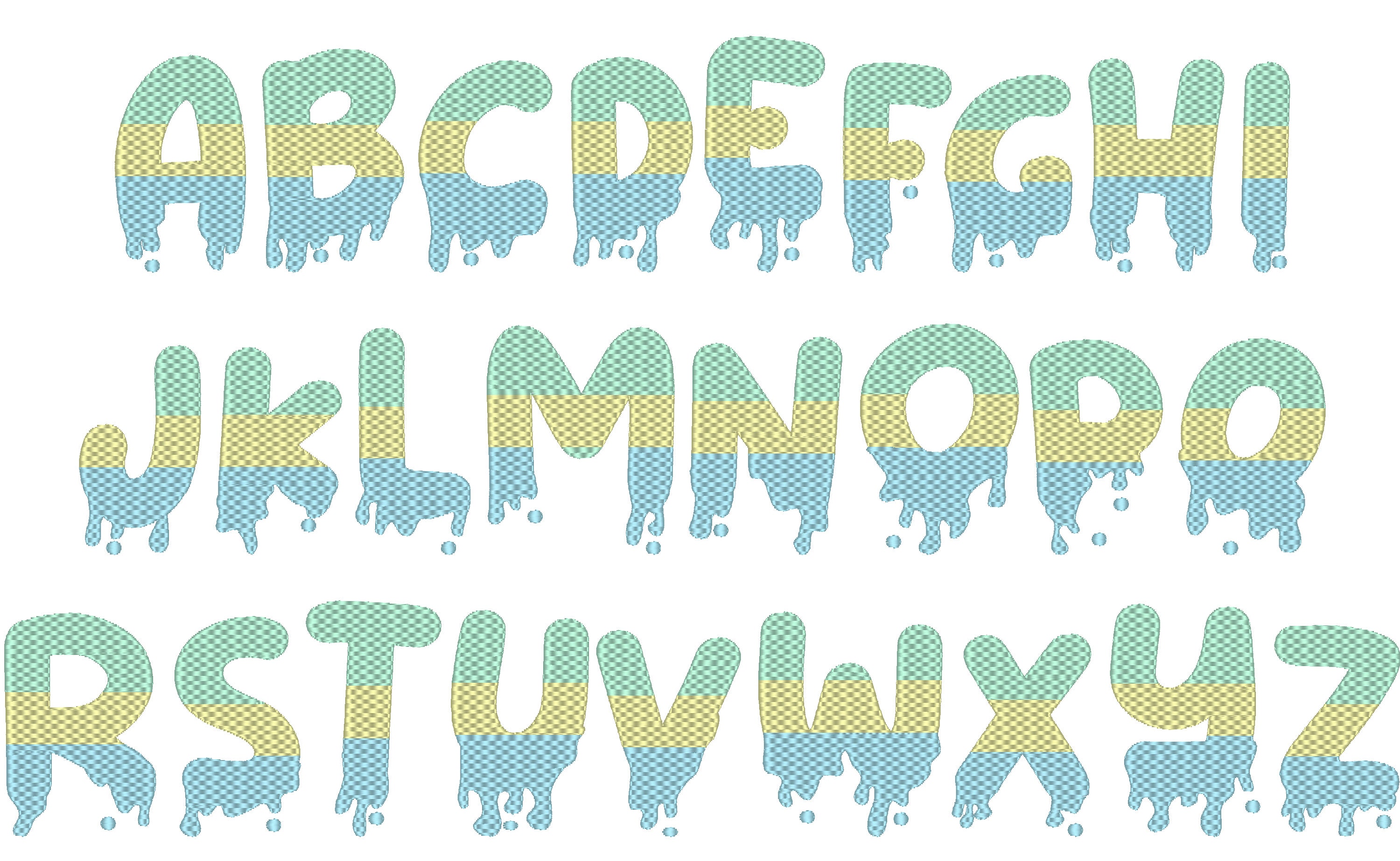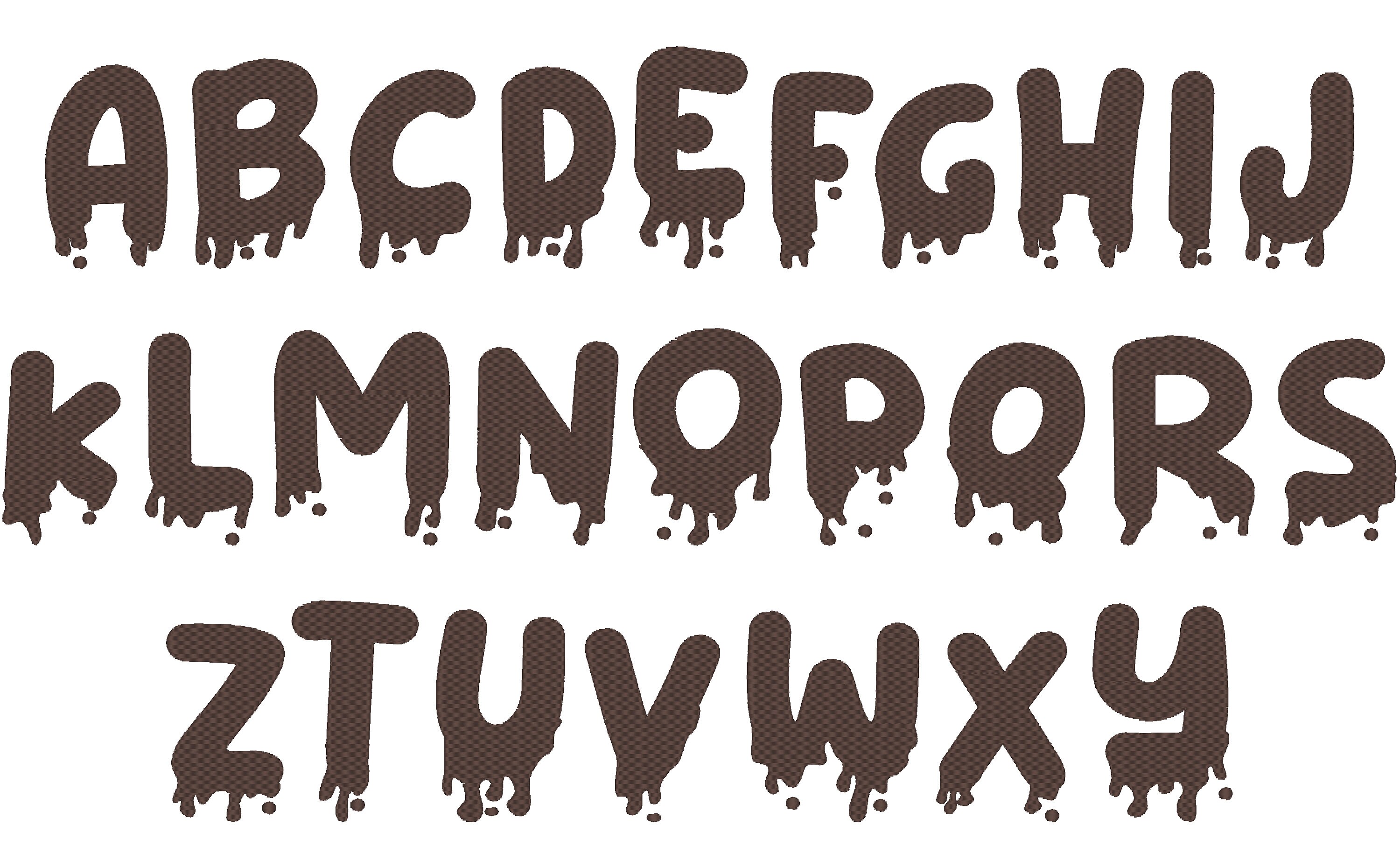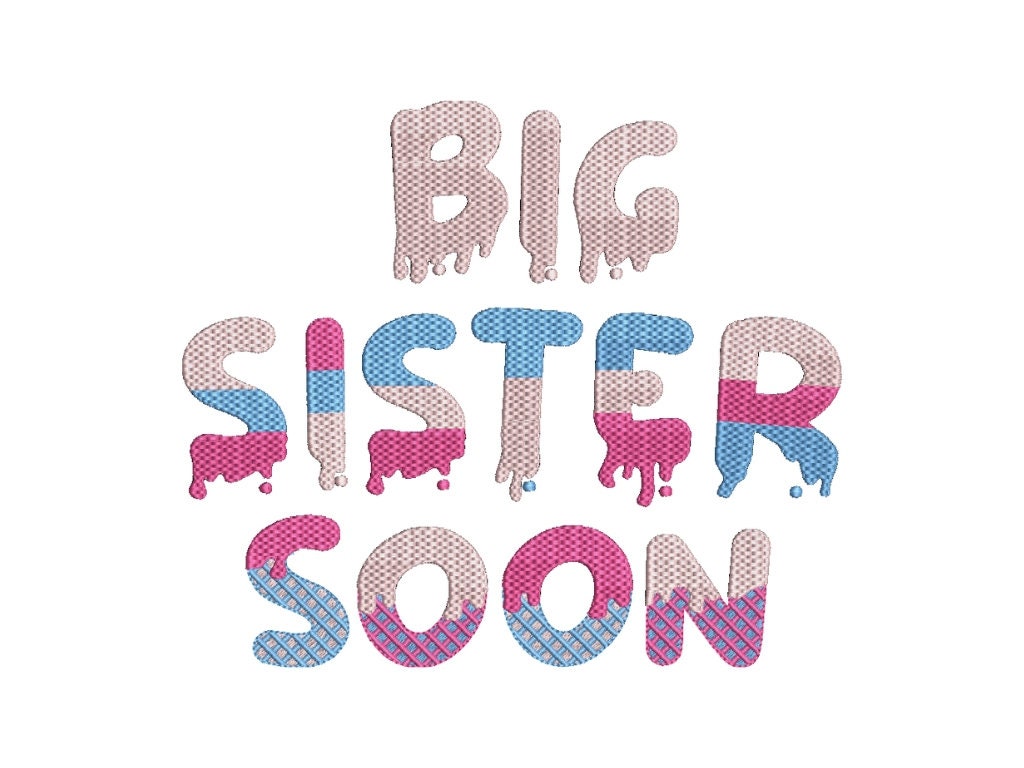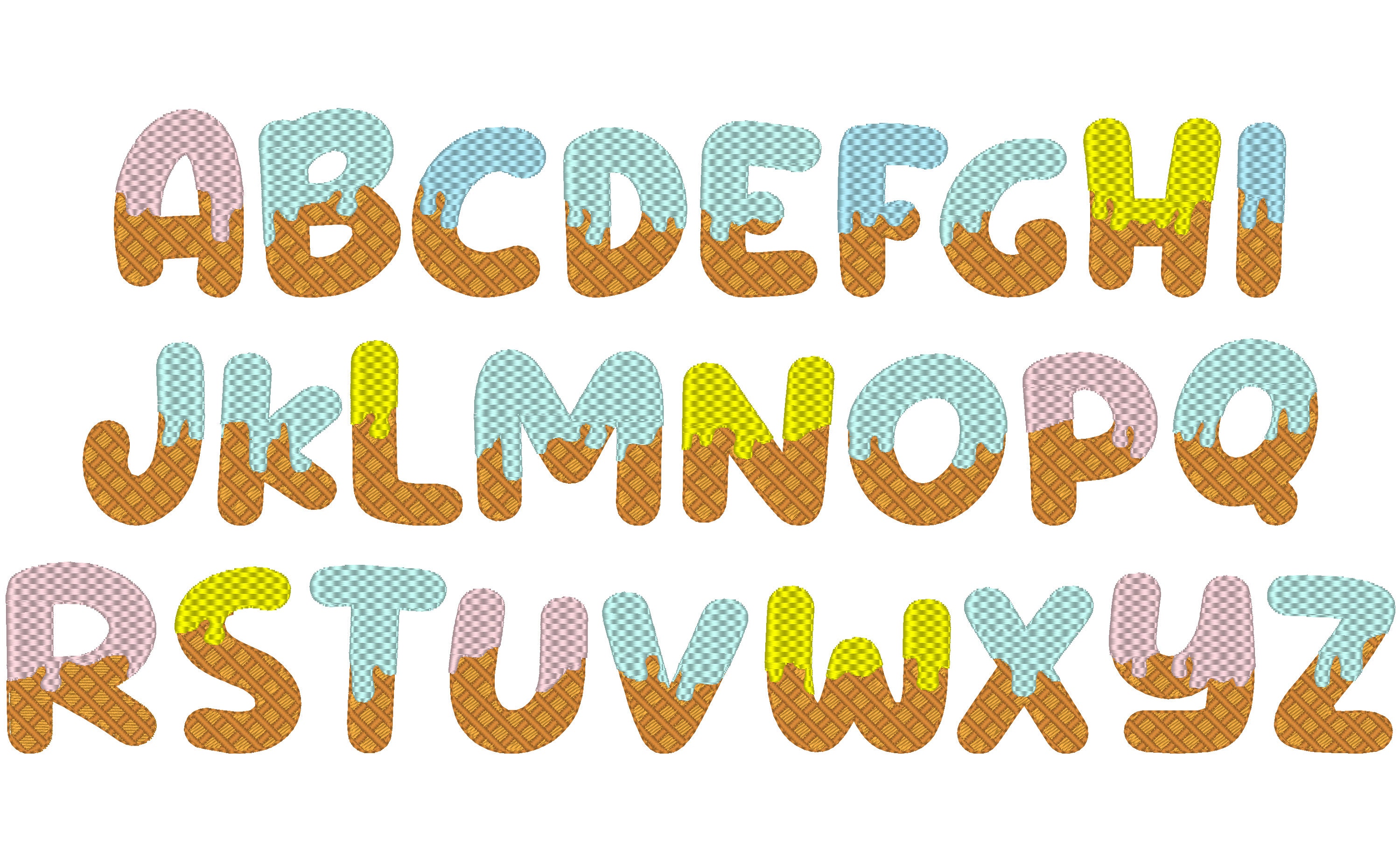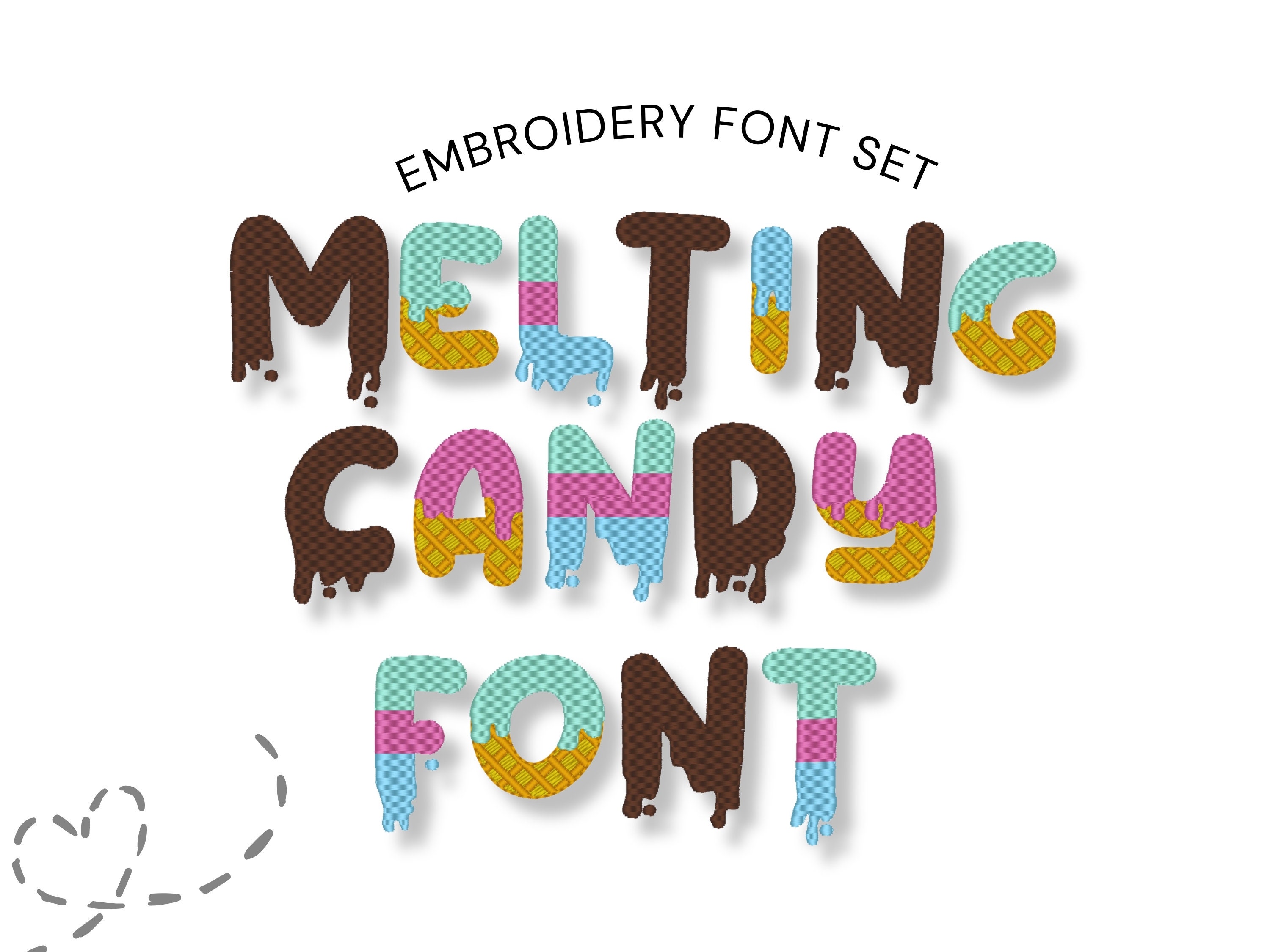
Decorative Melted Font SET waffle stitch alphabet letters DIY combine names monogram machine embroidery designs sizes 1.3 up to 4 inches, BX included
Designed to mix and match.
Included 3 fonts:
* Melting chocolate dream Font in waffle stitch
* Ice cream dream Font features waffle stitch and ice cream waffle cone
* Multicolor Melting Font in waffle stitch
Each font contains uppercase letters A-Z.
* Melting chocolate dream Font
* Ice cream dream Font (These letters are shorter as they don't have a melted part; they don't drip)
* Multicolor Melting Font
Merge and combine as you wish. Use different sizes and colors, just play and get awesome results!